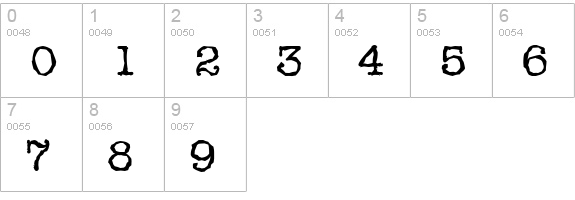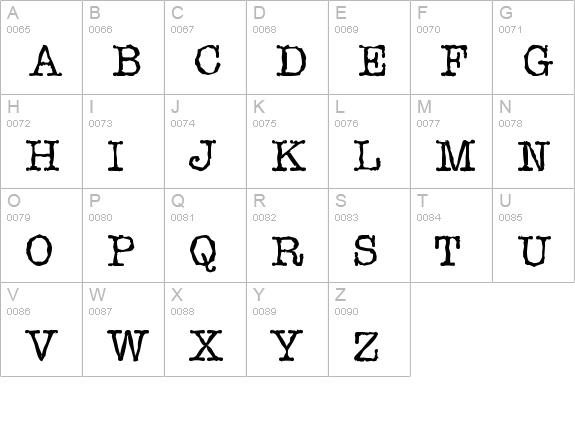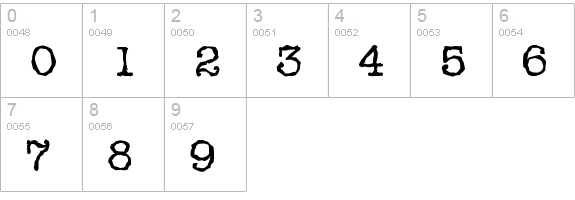
TypewriterRandom-Regular Font Details
TypewriterRandom-Regular is the standard, neutral variant in the TypewriterRandom typeface family \xE2\x80\x94 well suited to general body text, paragraphs, and standard typographic work.
TypewriterRandom-Regular is a classic and versatile font that exudes a nostalgic charm with its authentic typewriter-style appearance. Perfect for conveying a sense of vintage authenticity in your designs, this font is ideal for various projects such as posters, flyers, branding, and more. Its clean and easy-to-read characters make it a practical choice for both print and digital applications. The TypewriterRandom-Regular font is freely available to download at FontsMarket.com, making it accessible to designers looking to add a touch of retro flair to their work. Embrace the timeless appeal of this font and bring a hint of old-school sophistication to your projects today.